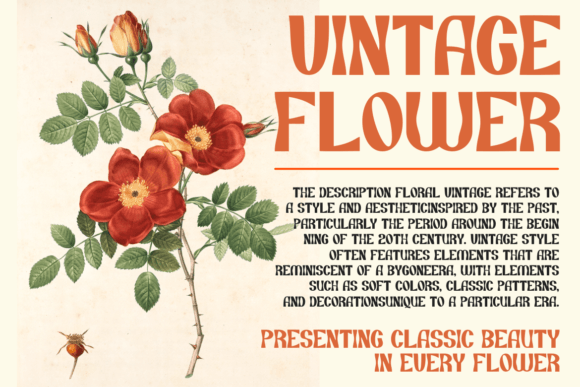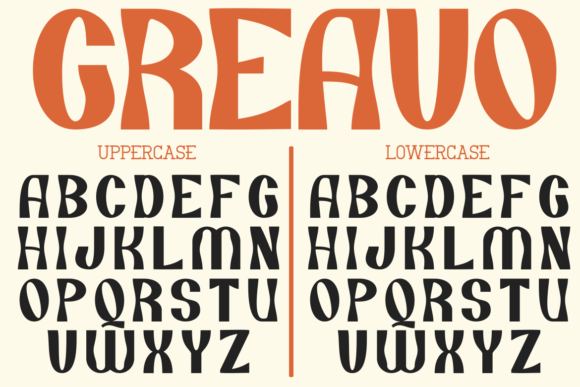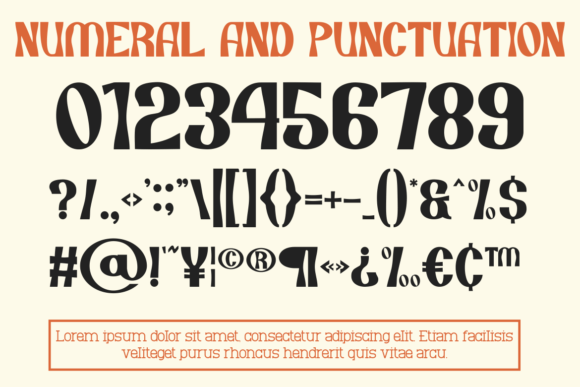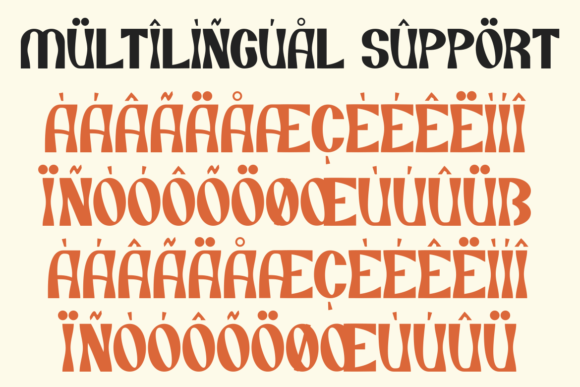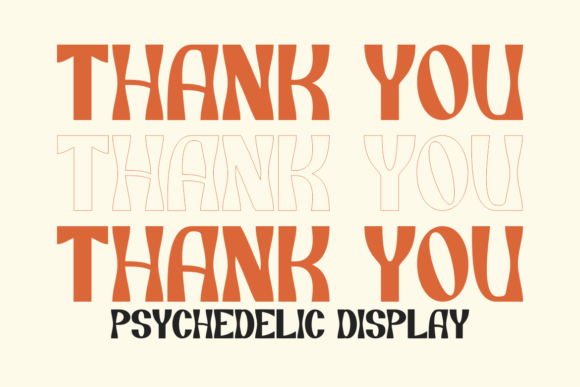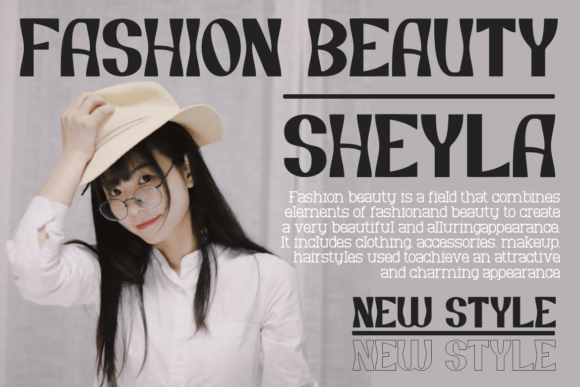
Unleashing Creativity with Greavo Font: A Psychedelic Masterpiece
In the realm of typography, few fonts manage to capture the essence of creativity and experimentation as effectively as the Greavo Font. This font is a vibrant, energetic, and abstract typeface that embodies a contemporary design perspective, making it an invaluable tool for designers seeking to infuse their projects with a sense of adventure and innovation. With its psychedelic style, Greavo Font combines artistic elements, colors, and eye-catching designs to create a captivating visual experience that is sure to leave a lasting impression.
The Psychedelic Style: A Creative Expression
The psychedelic style, a creative and expressive typeface, has been a staple of graphic design for decades. Characterized by its bold, vibrant, and often unconventional approach, this style is perfect for designers who want to push the boundaries of traditional typography. Greavo Font takes this style to new heights, offering a unique blend of artistic elements, colors, and designs that are sure to capture the attention of any audience.
Key Features of Greavo Font
So, what makes Greavo Font so special? Here are just a few of its key features:
- Energetic and Abstract Characteristics: Greavo Font is designed to be dynamic and attention-grabbing, making it perfect for projects that require a bold and innovative approach.
- Contemporary Design Perspective: This font is firmly rooted in modern design principles, ensuring that it looks fresh and relevant in any context.
- Psychedelic Style: Greavo Font is a true psychedelic masterpiece, combining artistic elements, colors, and eye-catching designs to create a truly unique visual experience.
- Versatility: Whether you’re working on a graphic design project, poster, art piece, or promotional materials, Greavo Font is the perfect choice.
Applications of Greavo Font
So, where can you use Greavo Font? The possibilities are endless! Here are just a few ideas to get you started:
- Graphic Design: Use Greavo Font to add a touch of creativity and experimentation to your graphic design projects.
- Posters and Flyers: Make your posters and flyers stand out with Greavo Font’s bold and eye-catching design.
- Art and Illustration: Greavo Font is perfect for art and illustration projects that require a unique and creative approach.
- Promotional Materials: Use Greavo Font to create promotional materials that are sure to grab attention and leave a lasting impression.
Tips for Using Greavo Font
To get the most out of Greavo Font, here are a few tips to keep in mind:
- Experiment with Colors: Greavo Font is designed to be colorful and vibrant, so don’t be afraid to experiment with different color schemes.
- Play with Layouts: Greavo Font is perfect for creating unique and experimental layouts, so don’t be afraid to think outside the box.
- Combine with Other Fonts: Greavo Font can be combined with other fonts to create a truly unique visual experience.
In conclusion, Greavo Font is a true masterpiece of psychedelic typography. With its energetic and abstract characteristics, contemporary design perspective, and versatility, this font is perfect for designers who want to infuse their projects with a sense of adventure and creative experimentation. Whether you’re working on a graphic design project, poster, art piece, or promotional materials, Greavo Font is the perfect choice. So why wait? Download Greavo Font today and unleash your creativity!